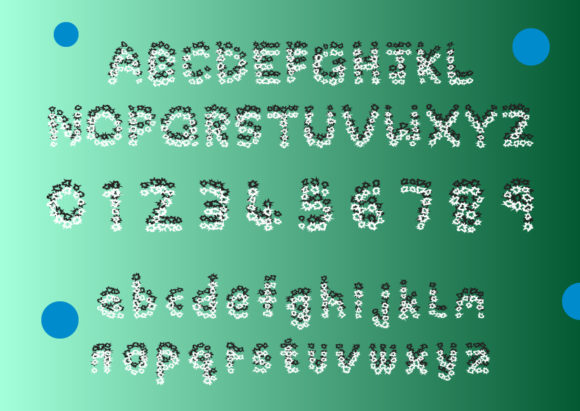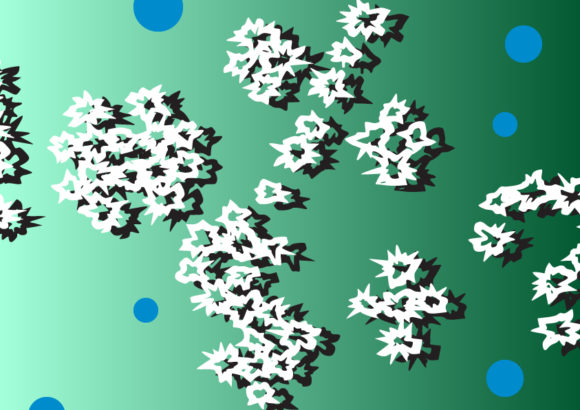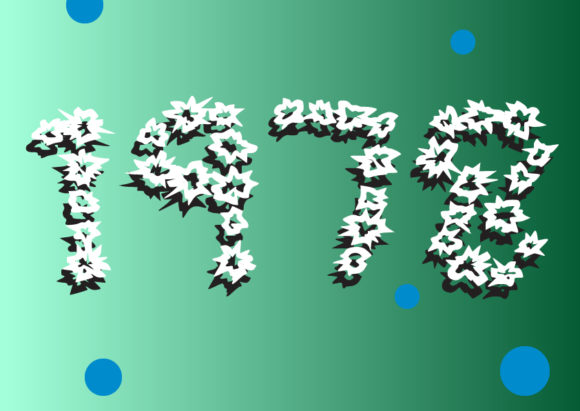
Coughing Up a Storm: The Unique World of Cough Font
Who hasn’t had one of those late-night, ‘what was I thinking?’ moments when inspiration strikes? For designers, it’s a familiar sensation – the spark of creativity that refuses to be ignored. And for us, that moment came when we stumbled upon Cough Font, a quirky display font that’s as playful as it is clever.
Conceived with a focus on bacteria and viruses, Cough Font is a refreshing take on the traditional font. Its original and cute design makes it an instant favorite among designers looking to add some whimsy to their projects. Whether you’re working on a medical campaign or a children’s book, Cough Font’s versatility makes it a valuable addition to any designer’s toolkit.
Cough Font Key Features
- Unique Characteristics: Cough Font features a distressed, handwritten style with a rough texture, giving it a unique and eye-catching appearance.
Cough Font Review
I recently had the chance to work with the Cough Font, and I must say it was a unique experience. Here’s my honest review.
- The font’s quirky, handwritten feel is perfect for adding a touch of personality to designs.
- The bold weight is incredibly expressive and can add a lot of emphasis to text.
- The font is highly legible, even at smaller sizes, which is a major plus for digital designs.
- The font’s irregular shape and inconsistent letter spacing can make it challenging to use in body text.
- The font’s expressiveness can also make it difficult to use in situations where a more neutral tone is desired.
- The font is not optimized for print designs, which may result in inconsistent line spacing and alignment.
The Cough Font is a fun and expressive typeface that’s perfect for adding a touch of whimsy to designs. However, its limitations make it better suited for use as a accent font or in situations where a more neutral tone is not required. Overall, I’d recommend the Cough Font to designers looking to add some personality to their designs, but with caution.
Getting the Most Out of Cough Font
Some tips to get the most out of Cough Font include:
- Experiment with different font sizes and styles to create a visually appealing design.
- Combine Cough Font with other fonts to create a unique and interesting design.
- Use Cough Font to create attention-grabbing headings and titles.
Cough Font is commonly used in:
- Graphic design
Alternatives to Cough Font for Designers
Great Vibes is a beautiful, handwritten font that is perfect for creating a friendly and approachable atmosphere. It is ideal for use in branding, signage, and other applications where a personal touch is desired.
Great Vibes is more elegant and refined compared to Cough Font, which has a more casual and rough texture.
2. Dancing Script
Dancing Script is a highly decorative font that is perfect for adding a touch of sophistication and glamour to any design. It is ideal for use in branding, advertising, and other applications where a sense of drama and flair is desired.
Dancing Script is more formal and elegant compared to Cough Font, which has a more casual and playful feel.
Q: Can I customize the Cough Font to fit my project’s needs?
The Cough Font is designed to be highly customizable. You can adjust the font size, color, and style to fit your project’s requirements. Additionally, you can use font editing software to modify the font’s glyphs or create custom variations.